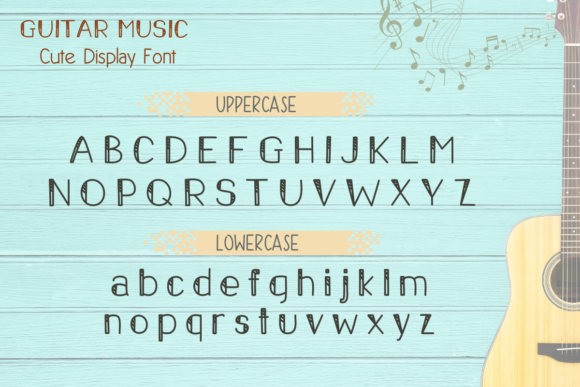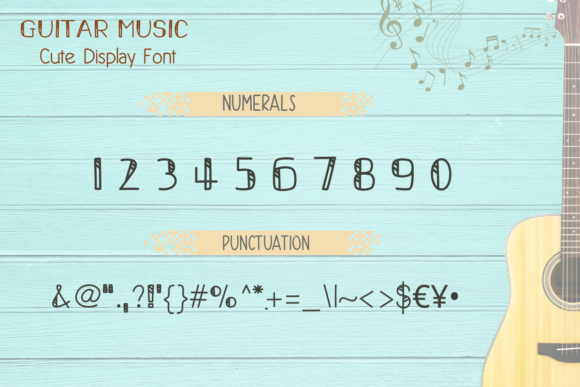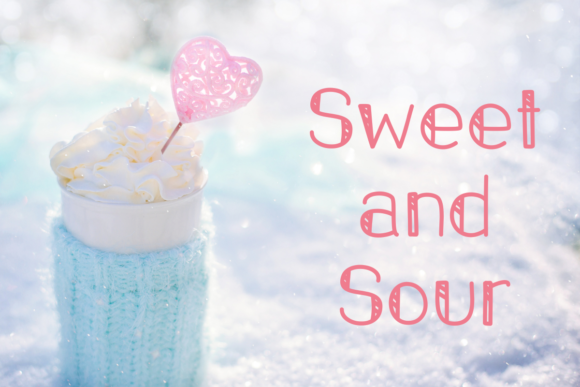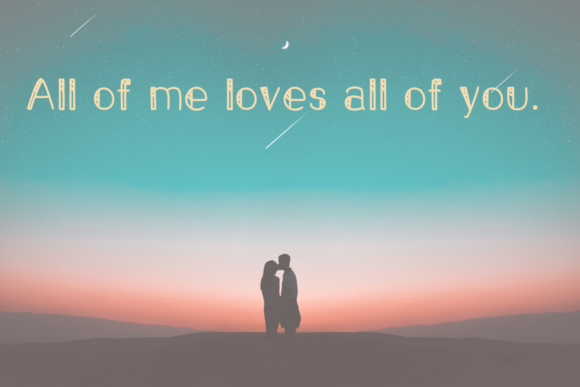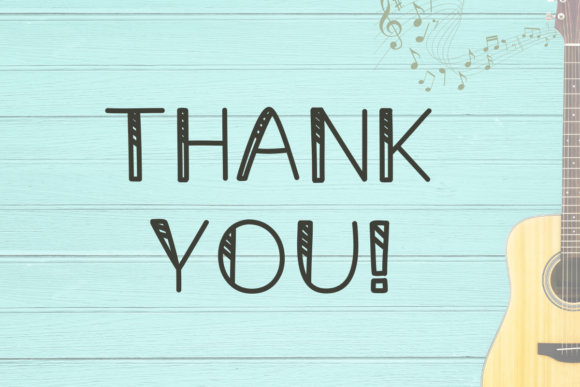
Guitar Music Font: Elevate Your Designs with a Unique Display Font
Are you a designer or crafter looking for a font that adds a touch of personality to your projects? Look no further than the Guitar Music Font, a cute display font that’s perfect for creating visually appealing designs. With its distinctive thick border on one side, this font is sure to make your letters look more dimensional and eye-catching.
What is Guitar Music Font?
Guitar Music Font is a unique display font that features a thick border on one side of the letters, giving them a 3D-like appearance. This font is perfect for designers and crafters who want to add a personal touch to their projects. Whether you’re creating Valentine’s Day cards, wedding invitations, or social media content, Guitar Music Font is an excellent choice.
Key Features of Guitar Music Font
- Thick Border: The font features a thick border on one side, giving the letters a dimensional look.
- Cute and Playful: Guitar Music Font has a cute and playful vibe, making it perfect for designs that require a touch of personality.
- Versatile: You can use Guitar Music Font in various projects, including documents, social media content, mugs, bags, and more.
- Easily Readable: Despite its unique design, Guitar Music Font is easy to read, making it perfect for body text and headings.
Uses of Guitar Music Font
Guitar Music Font is an incredibly versatile font that can be used in a wide range of projects. Here are some ideas to get you started:
- Valentine’s Day Cards: Create romantic Valentine’s Day cards with Guitar Music Font and make them extra special.
- Wedding Invitations: Use Guitar Music Font to create beautiful wedding invitations that set the tone for the big day.
- Social Media Content: Add a touch of personality to your social media content with Guitar Music Font.
- Stationery Art: Create stunning stationery art with Guitar Music Font and make your letters and notes stand out.
- Mugs and Bags: Use Guitar Music Font to create custom mugs and bags that make perfect gifts or promotional items.
Tips for Using Guitar Music Font
Here are some tips to help you get the most out of Guitar Music Font:
- Pair with Other Fonts: Experiment with pairing Guitar Music Font with other fonts to create a unique look.
- Adjust Font Size: Adjust the font size to achieve the desired effect. A larger font size can make the border more prominent.
- Use in Combination with Images: Use Guitar Music Font in combination with images to create visually appealing designs.
Guitar Music Font is a unique and versatile display font that’s perfect for designers and crafters. With its thick border and cute design, this font is sure to add a touch of personality to your projects. Whether you’re creating Valentine’s Day cards, wedding invitations, or social media content, Guitar Music Font is an excellent choice. So why wait? Download Guitar Music Font today and take your designs to the next level!